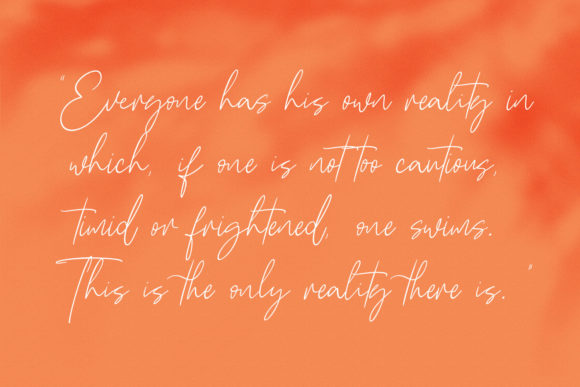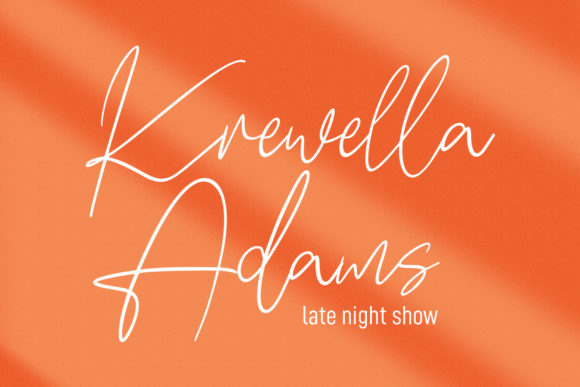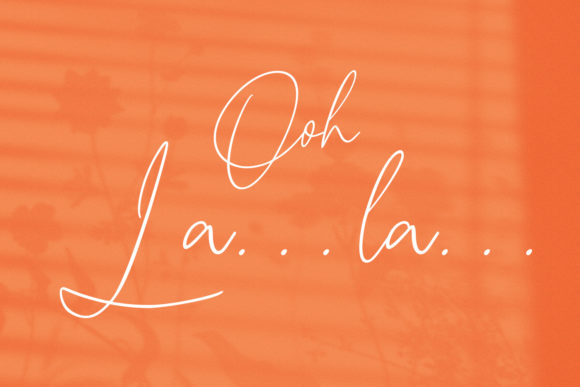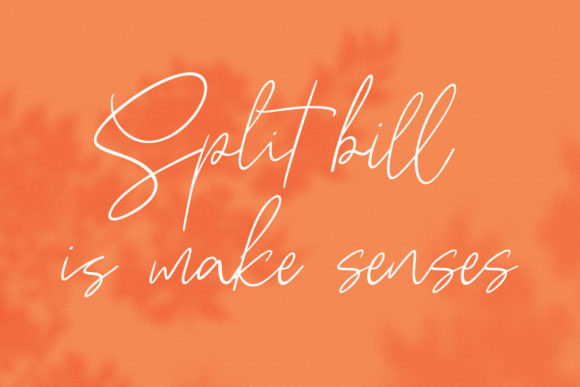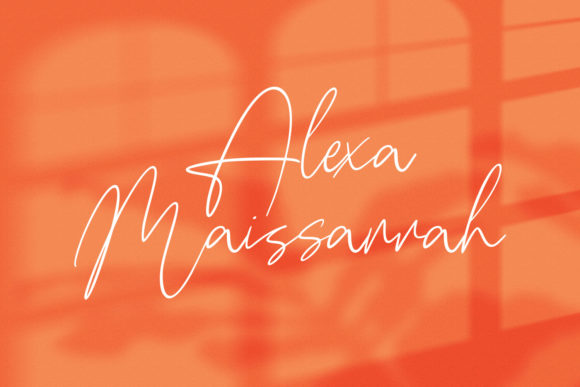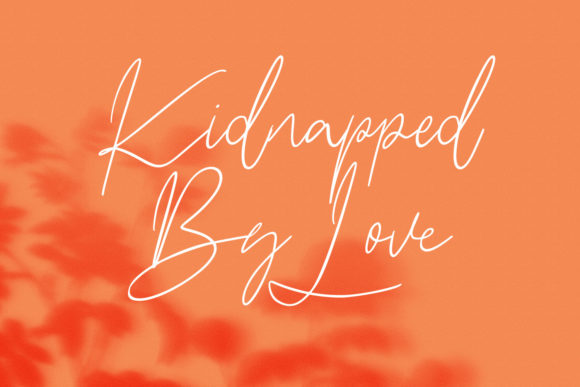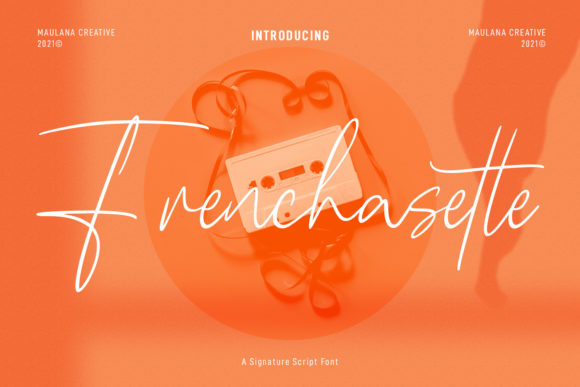
Introducing Frenchasette Font: Elevate Your Designs with Elegance and Class
Are you looking for a font that adds a touch of sophistication and refinement to your designs? Look no further than Frenchasette, a lovely and delicate script font that exudes elegance and class. Crafted with precision and attention to detail, Frenchasette is the perfect choice for designers and crafters seeking a beautiful and refreshing look for their projects.
The Story Behind Frenchasette
Frenchasette is a carefully crafted script font designed to bring a sense of luxury and refinement to your designs. Its delicate strokes and elegant letterforms evoke the charm of classic French typography, making it an ideal choice for projects that require a touch of sophistication. Whether you’re working on a branding project, creating wedding invitations, or designing packaging, Frenchasette is sure to impress.
Key Features of Frenchasette Font
- Delicate and Elegant: Frenchasette’s script font features delicate strokes and elegant letterforms, perfect for creating sophisticated designs.
- Highly Readable: Despite its delicate nature, Frenchasette is highly readable, making it suitable for body text and headings.
- Versatile: Frenchasette is a versatile font that works well in a variety of design applications, from branding and advertising to packaging and stationery.
- Unique Character: Frenchasette’s unique character set includes a range of special characters, ligatures, and alternate glyphs, allowing you to add a personal touch to your designs.
Uses for Frenchasette Font
Frenchasette’s versatility and elegance make it suitable for a wide range of design applications, including:
- Branding and Logo Design: Use Frenchasette to create a sophisticated brand identity that exudes elegance and refinement.
- Wedding and Event Stationery: Add a touch of luxury to your wedding invitations, save-the-dates, and other event stationery with Frenchasette.
- Packaging Design: Use Frenchasette to create eye-catching packaging that stands out on store shelves.
- Advertising and Marketing: Elevate your advertising and marketing materials with Frenchasette’s elegant and refined script font.
Tips for Using Frenchasette Font
To get the most out of Frenchasette, here are a few tips to keep in mind:
- Pair with a Sans-Serif Font: Pair Frenchasette with a sans-serif font to create a striking contrast and add visual interest to your designs.
- Use for Headings and Titles: Use Frenchasette for headings and titles to add a touch of elegance and sophistication to your designs.
- Experiment with Ligatures: Take advantage of Frenchasette’s ligatures and alternate glyphs to add a personal touch to your designs.
Frenchasette is a beautiful and elegant script font that is sure to elevate your designs to the next level. With its delicate strokes, elegant letterforms, and versatile character set, Frenchasette is the perfect choice for designers and crafters seeking a sophisticated and refined look. Whether you’re working on a branding project, creating wedding invitations, or designing packaging, Frenchasette is sure to impress. So why wait? Download Frenchasette today and add a touch of elegance and class to your designs!